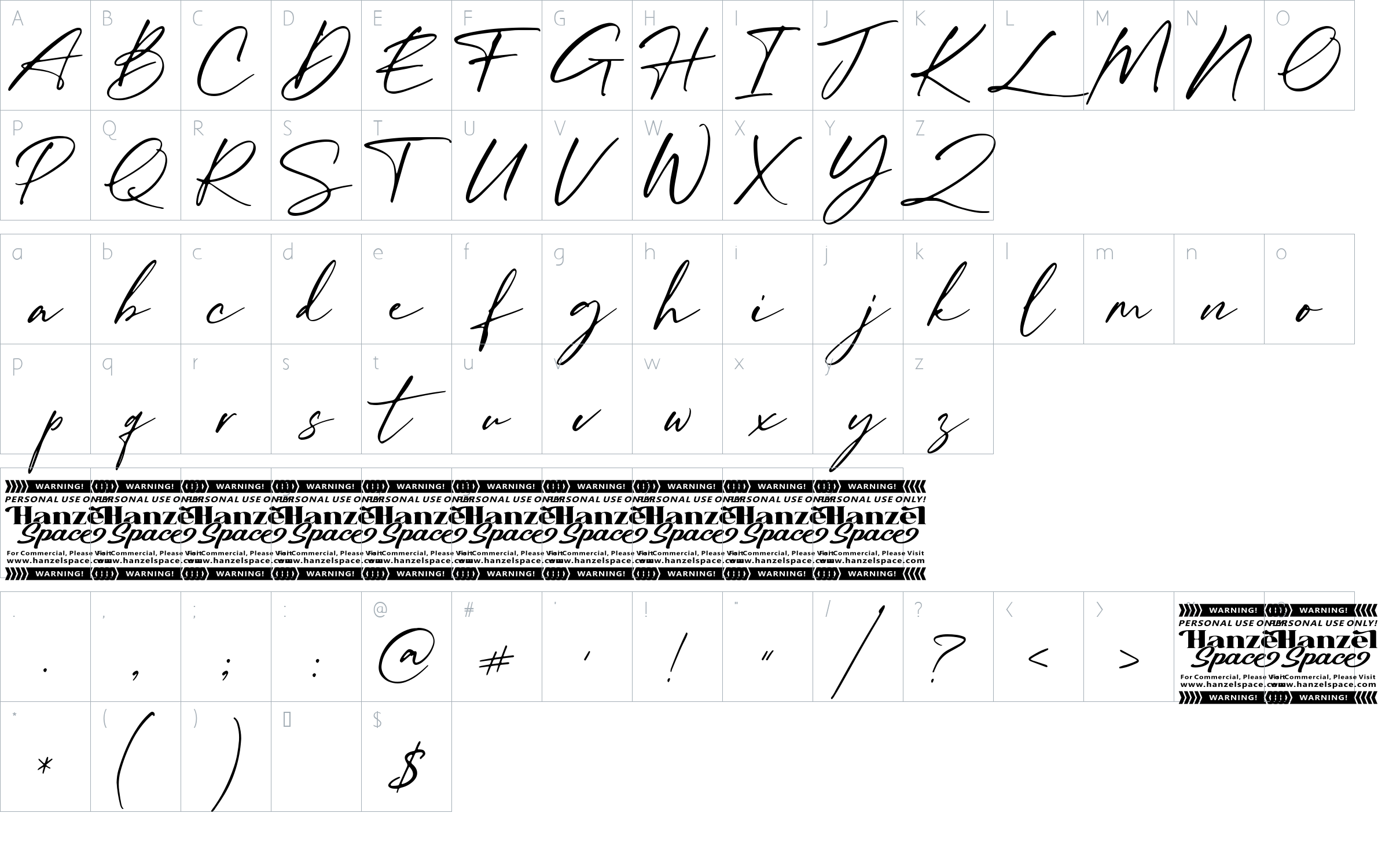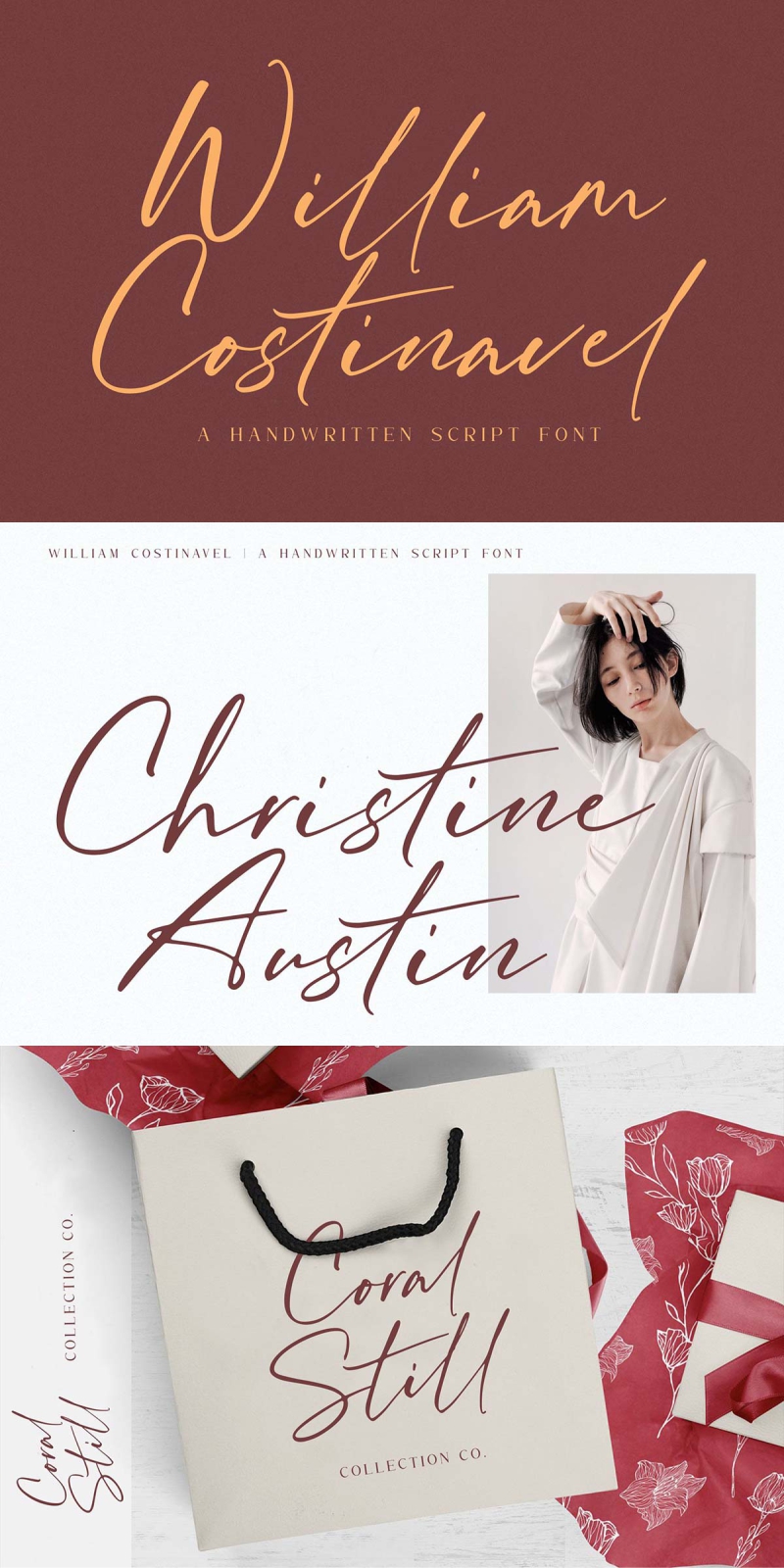
William Costinavel Font
About William Costinavel
Introducing William Costinavel Script Font
William Costinavel i hope this font is perfect for creating signature logos and watermarks for photography studio or wedding invitation, Lable, Logo, Magazine best for initial or branding logo signature.
• Standard Ligatures
• Numerals and Punctuation